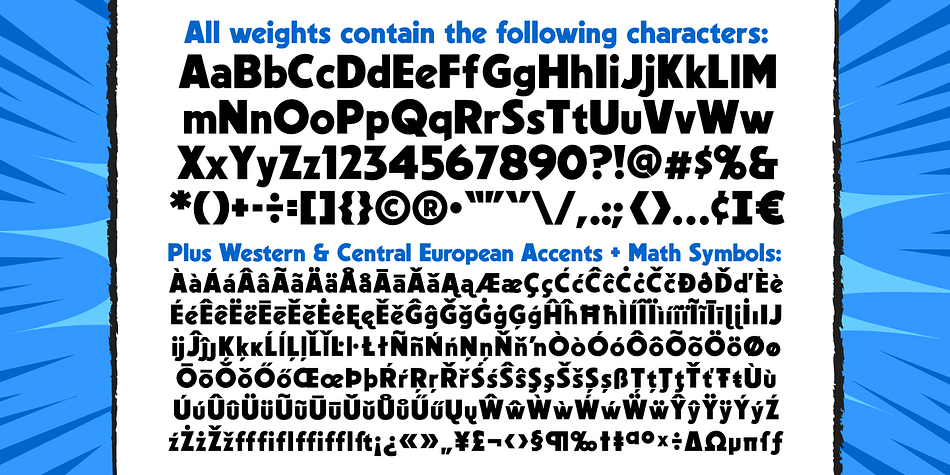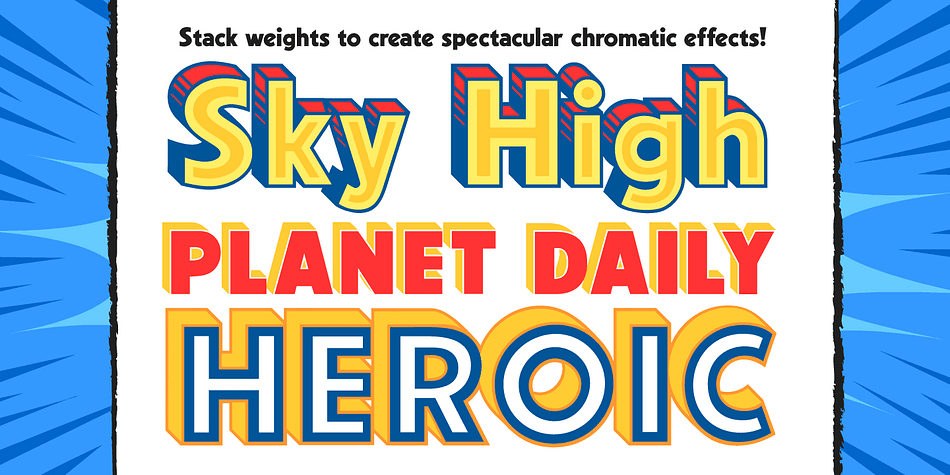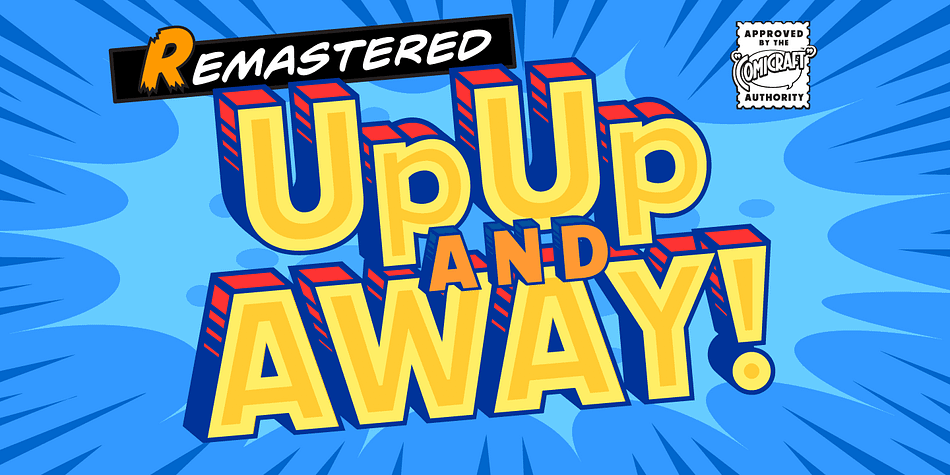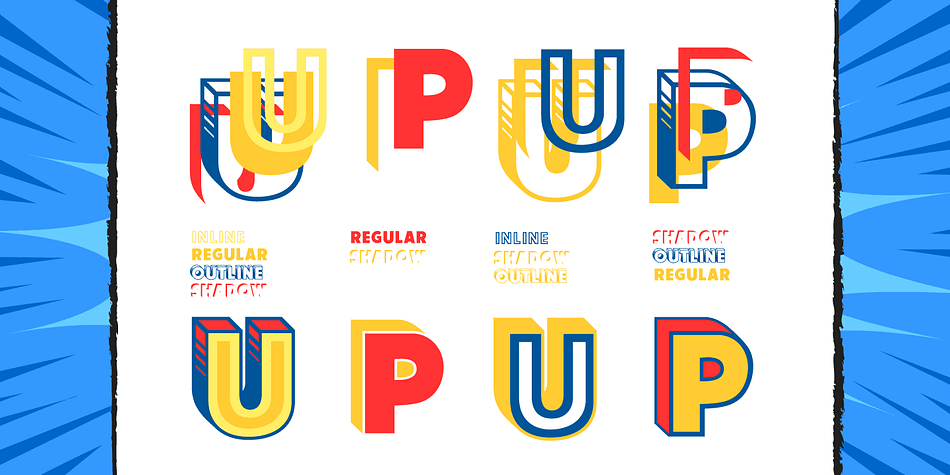
Designed by John Roshell, Up Up And Away is a comic and display sans font family. This typeface has five styles and was published by Comicraft.
Is it a Bird? Is it a Plane? Is it a Rocket? No it’s another Super Font from those awfully nice chaps at Comicraft. Faster than a speeding Option 8, Up, Up and Away can see through ‘O’s, jump Capital T in a single bound, and rescue caps dropped from the tallest ascenders. There isn’t a more heroic or x-heighting font in our catalog and it’s as wholesome as truth, justice and mom’s apple pie. It will even help you make Mom a birthday card!!
Five fonts (Regular, Inline, Outline, Shadow & Popup) with upper and lowercase alphabets.